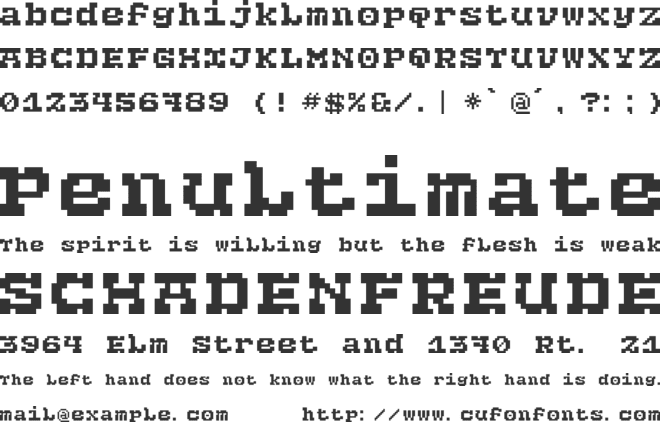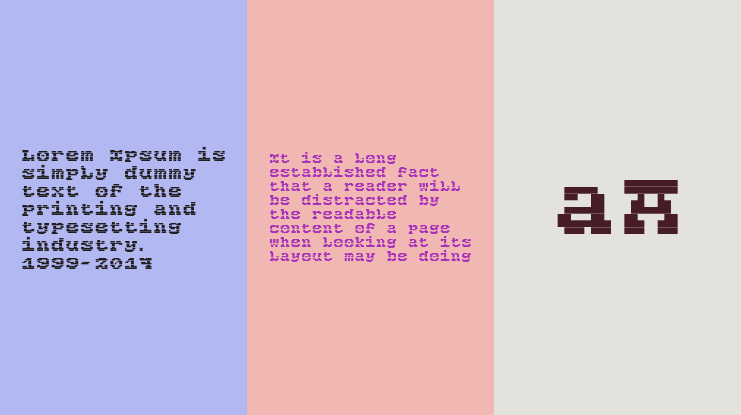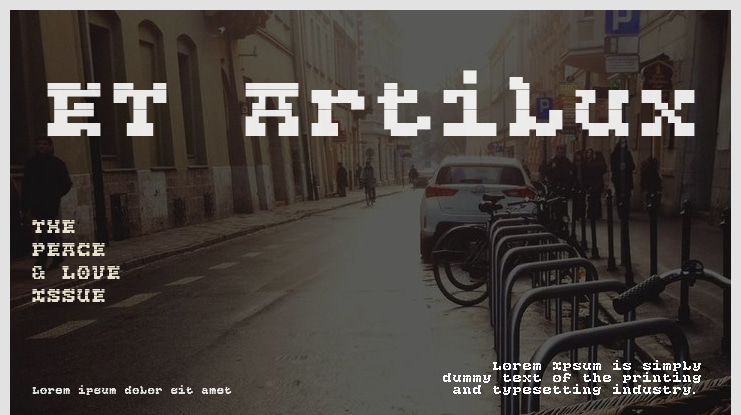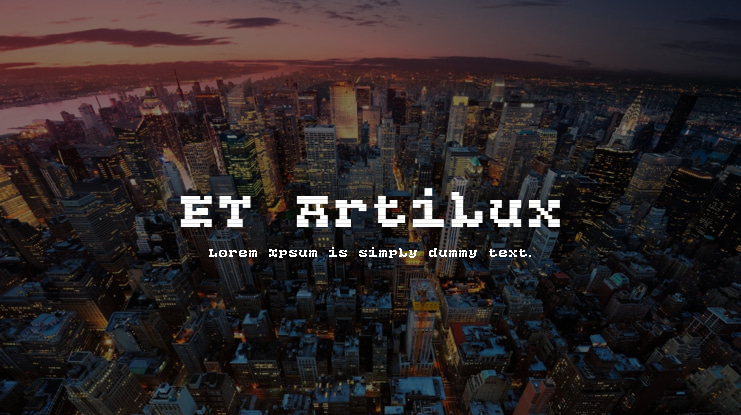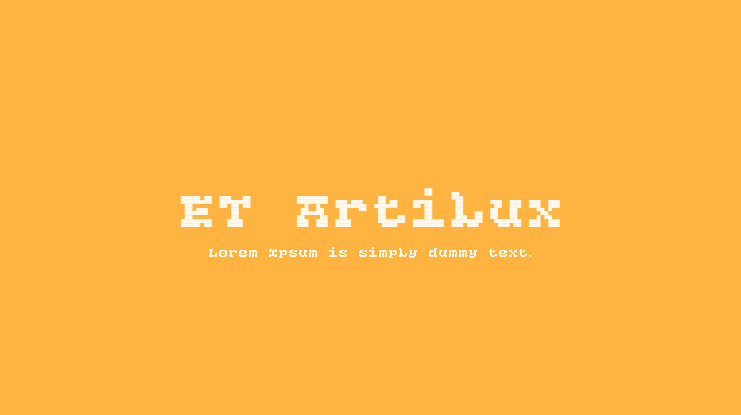
ET Artilux Font Family
Etipos Artilux
Monospaced Pixel Serif Typeface
ARTILUX, born from the essence of pixel typography, is a Monospaced Serif typeface crafted on a 10x12 grid. Beyond being a mere pixel font, ET Artilux transcends as a versatile tool, designed to complement the skill and creativity of its users. Artilux is available in two versions: TEXT and DISPLAY, each offering unique attributes to elevate your designs.
TEXT Version:
The text version of Artilux comes with outlined characters to make it ideal for plain text, ensuring readability and performance. Whether you're crafting documents, presentations, or web content, Artilux Text delivers a clean and professional aesthetic. With its subtle yet distinctive pixelated charm, this version adds a touch of character to any project without overpowering the content.
DISPLAY Version:
On the other hand, the display version of Artilux unleashes your creativity with every pixel. This version allows you to explore the full potential of pixel art and decorative typography. With layers that enable you to experiment and create captivating patterns, Artilux Display is perfect for eye-catching headlines, posters, covers, animation and more.